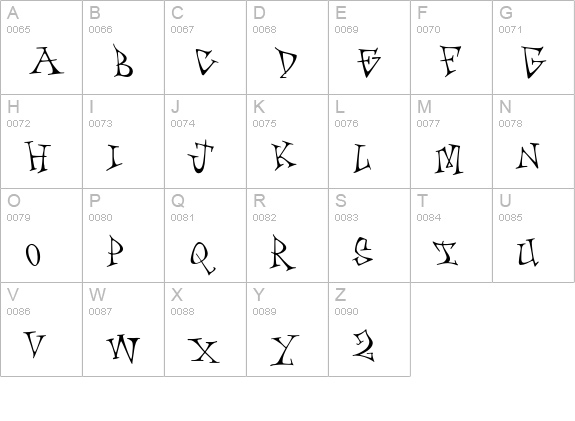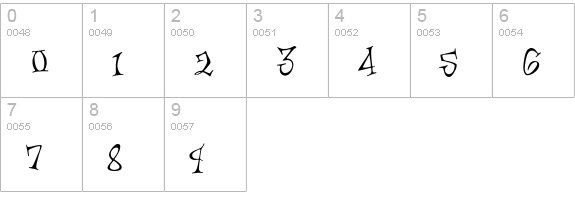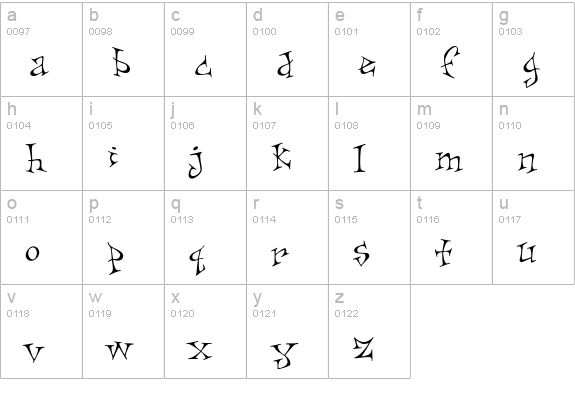
Skiffledog-Scratch Font Details
Introducing Skiffledog-Scratch font, a captivating typeface that exudes a raw and rebellious energy. This bold and rugged font captures the essence of hand-drawn graffiti and street art, bringing a touch of urban edginess to your designs. Skiffledog-Scratch font features a unique blend of sharp, jagged edges and fluid curves, creating a visually striking contrast that commands attention. Its rough texture and distressed appearance give it an authentic and unpolished charm, perfect for adding a gritty and streetwise vibe to your projects. This versatile font is ideal for a wide range of design applications, from posters and album covers to apparel and branding. Whether you're working on a project with a punk rock aesthetic or simply want to inject some rebellious spirit into your designs, Skiffledog-Scratch font is the perfect choice. What makes Skiffledog-Scratch font even more appealing is that it is free to download at FontsMarket.com. This means that you can easily access and use this captivating font without any restrictions or limitations. So go ahead, unleash your creativity and let Skiffledog-Scratch font add a touch of urban flair to your designs. Download it today and see how this font can elevate your projects to new heights.